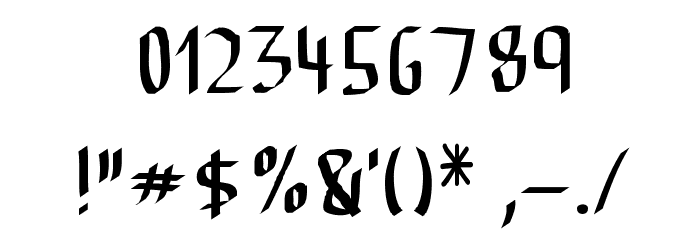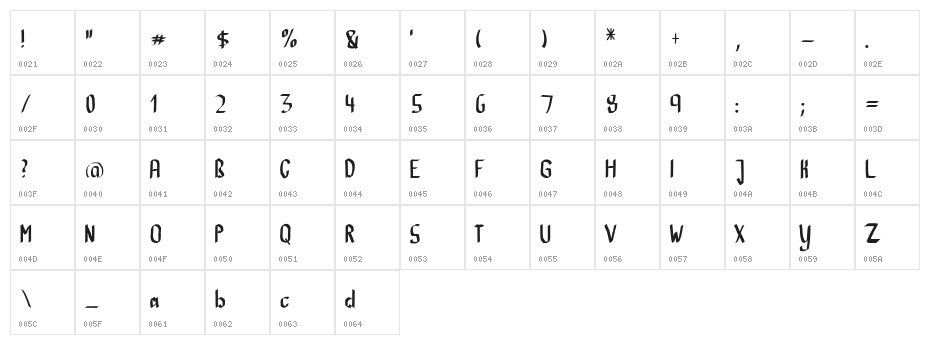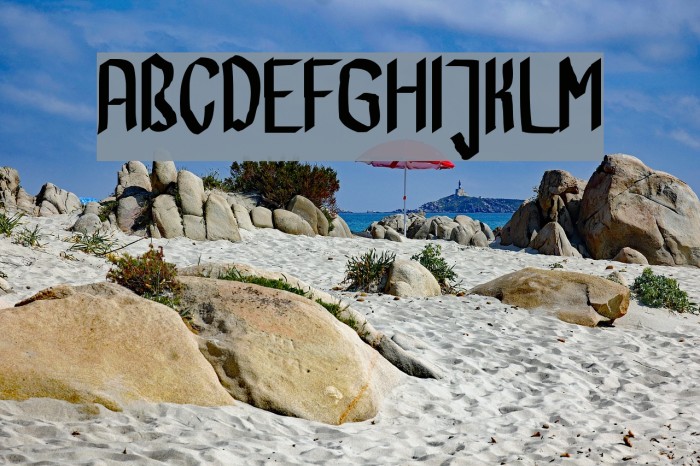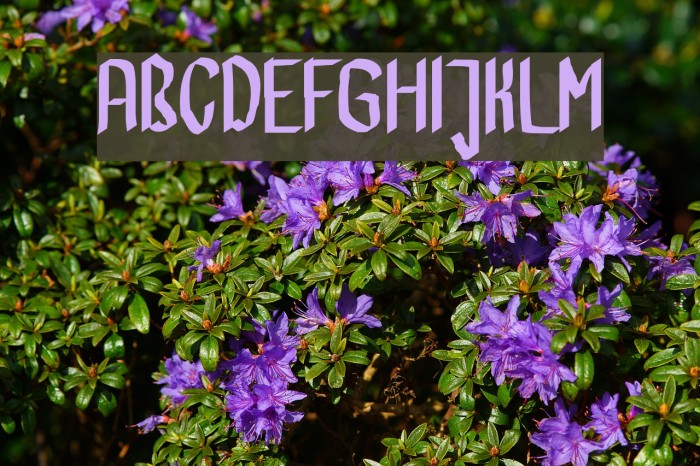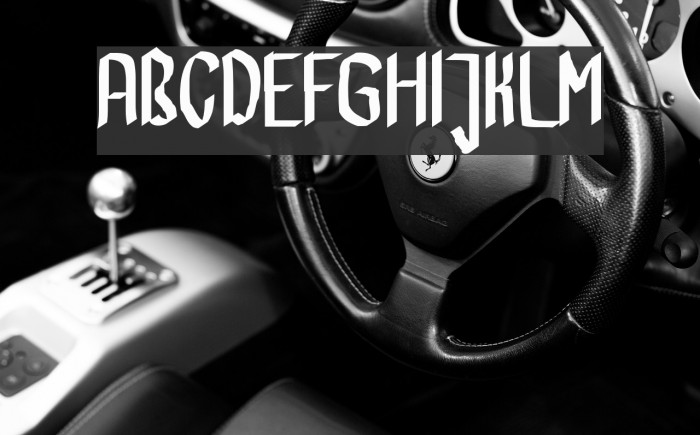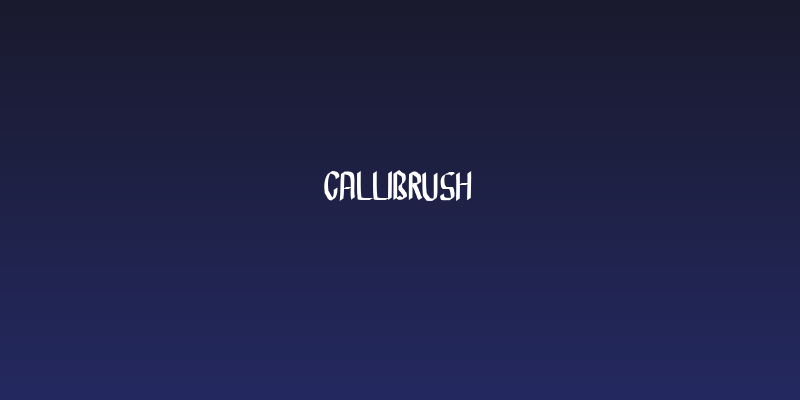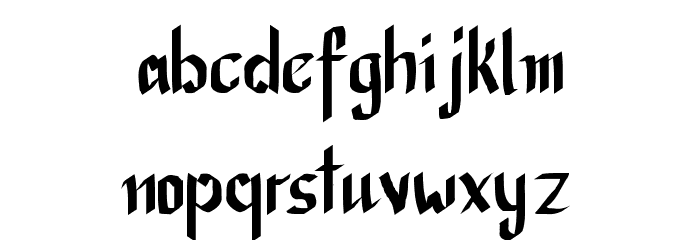
CalliBrush Font
CalliBrush Description
This font features a dynamic and expressive style, reminiscent of brush strokes with a calligraphic influence. The uppercase letters are bold and angular, with a distinct flair that adds a sense of movement and energy. The lowercase letters maintain this fluidity, offering a harmonious blend of sharp edges and smooth curves. Numbers and special characters are crafted with the same attention to detail, ensuring consistency across the entire set. The overall appearance is both artistic and modern, making it suitable for creative projects that require a touch of elegance and personality.